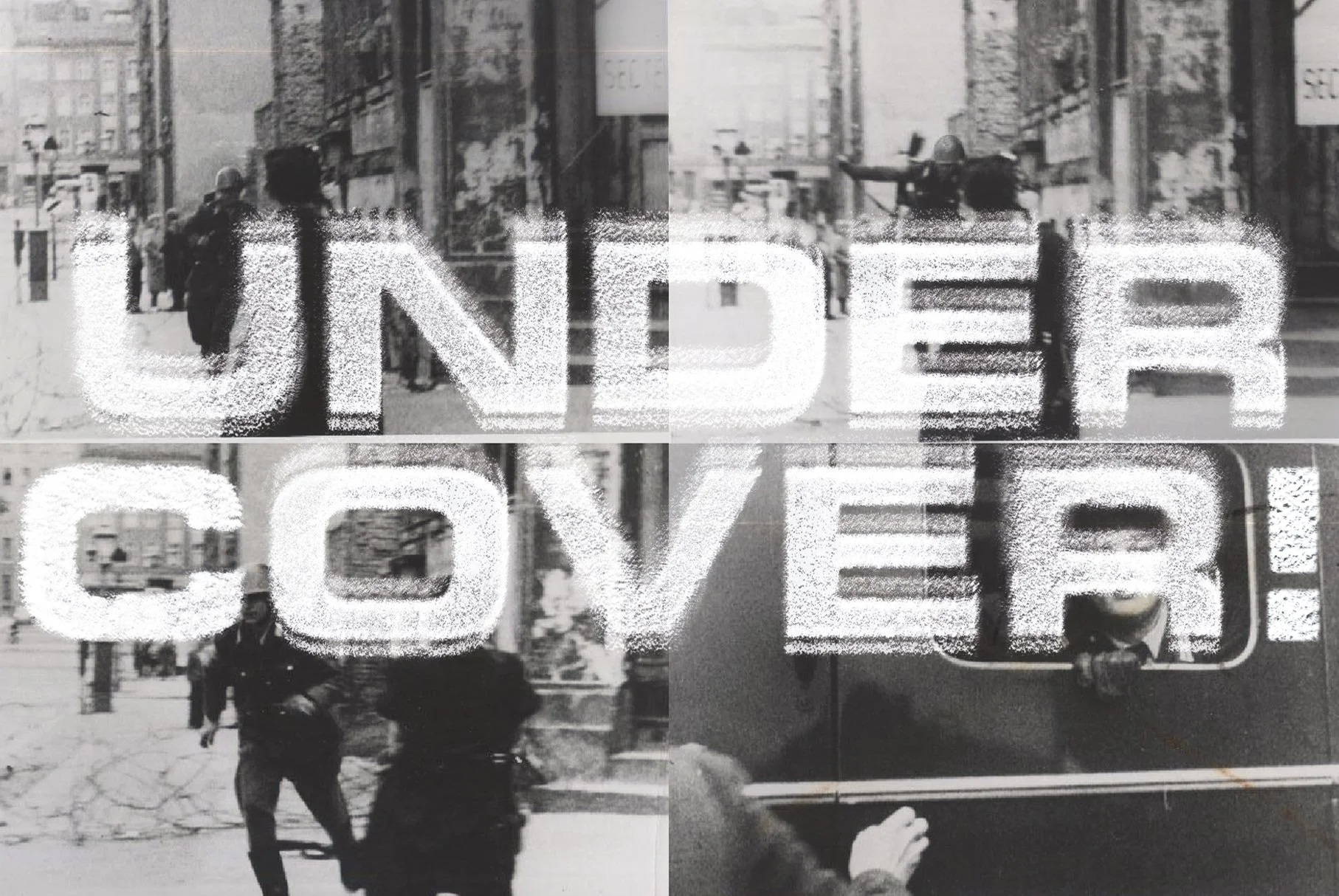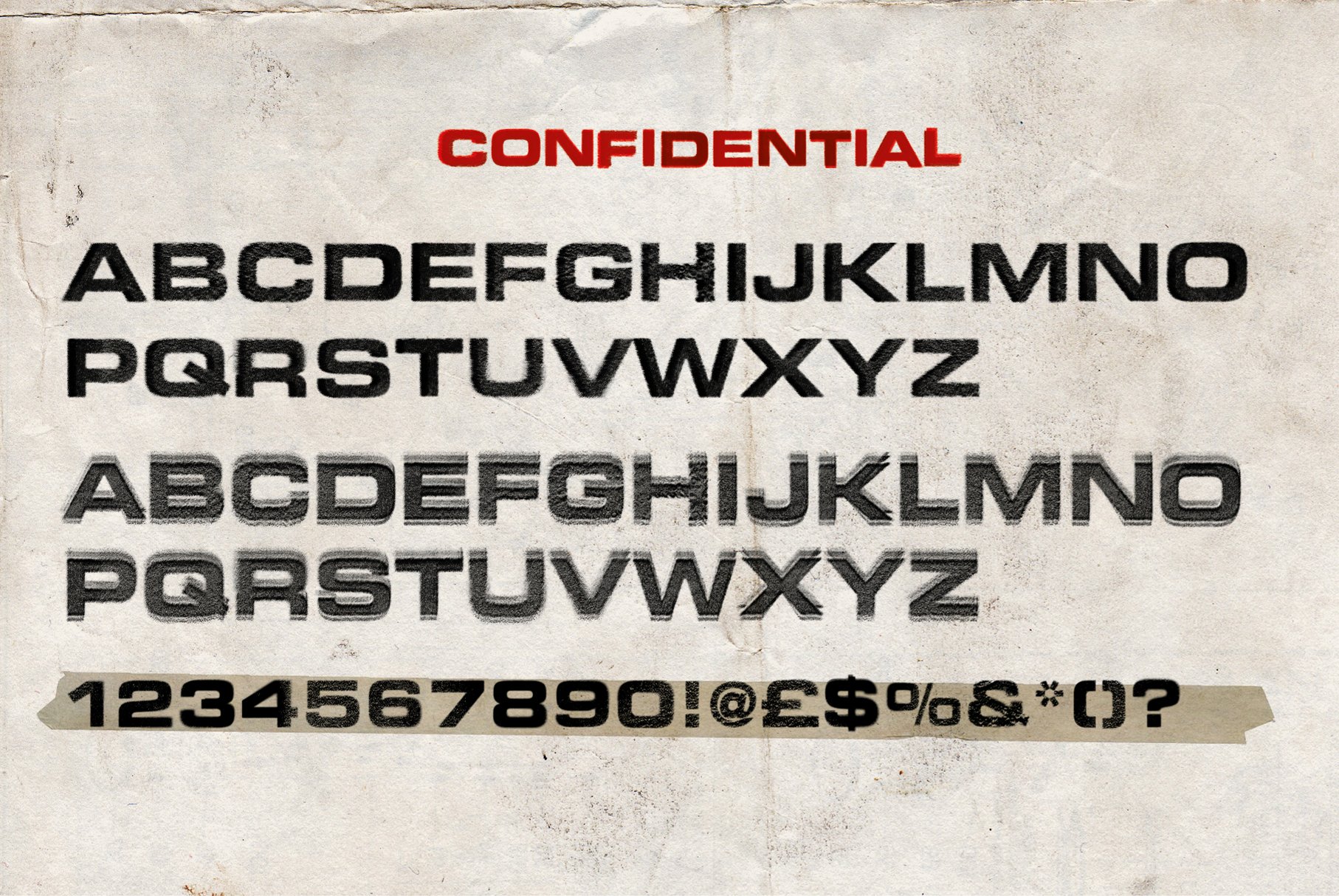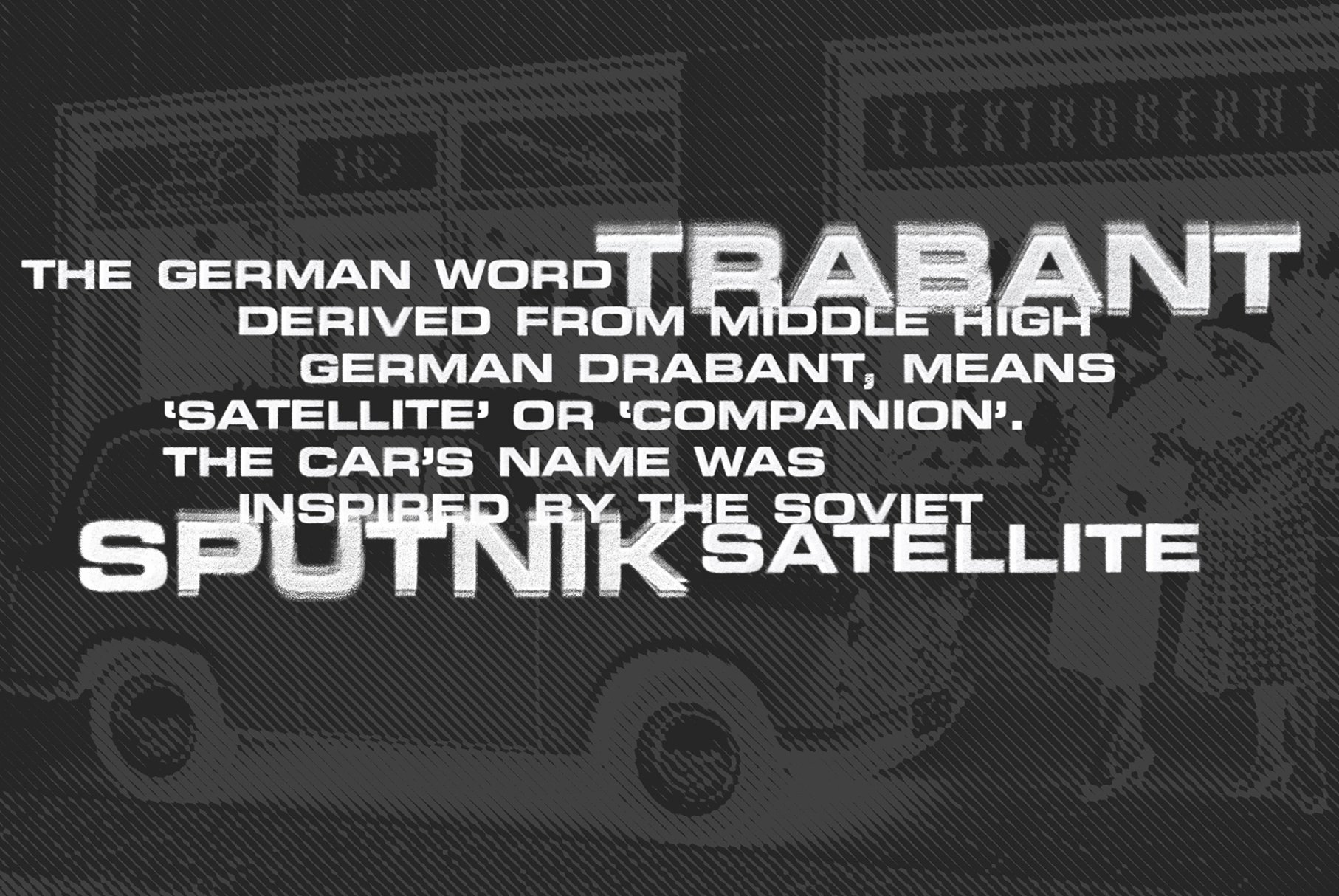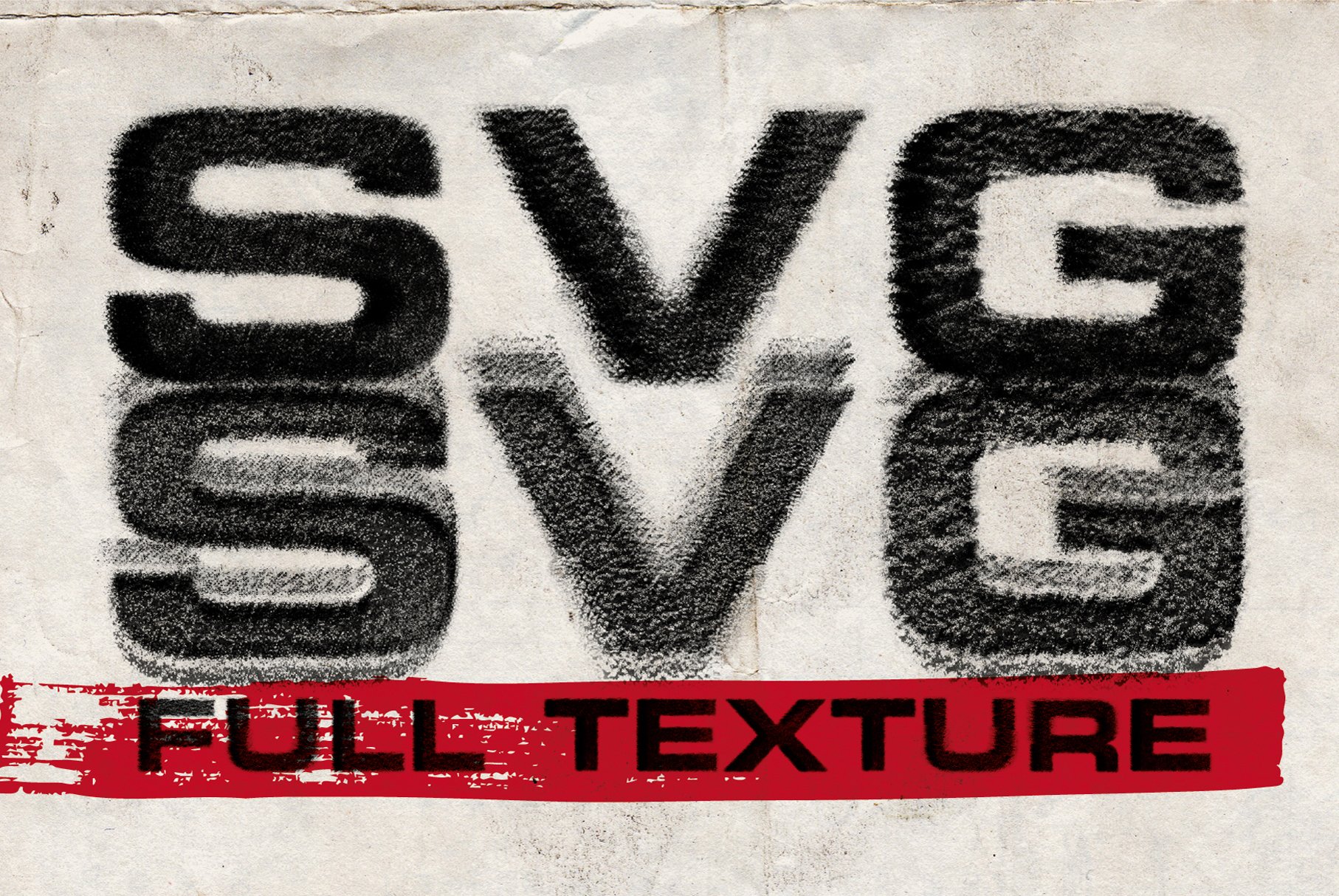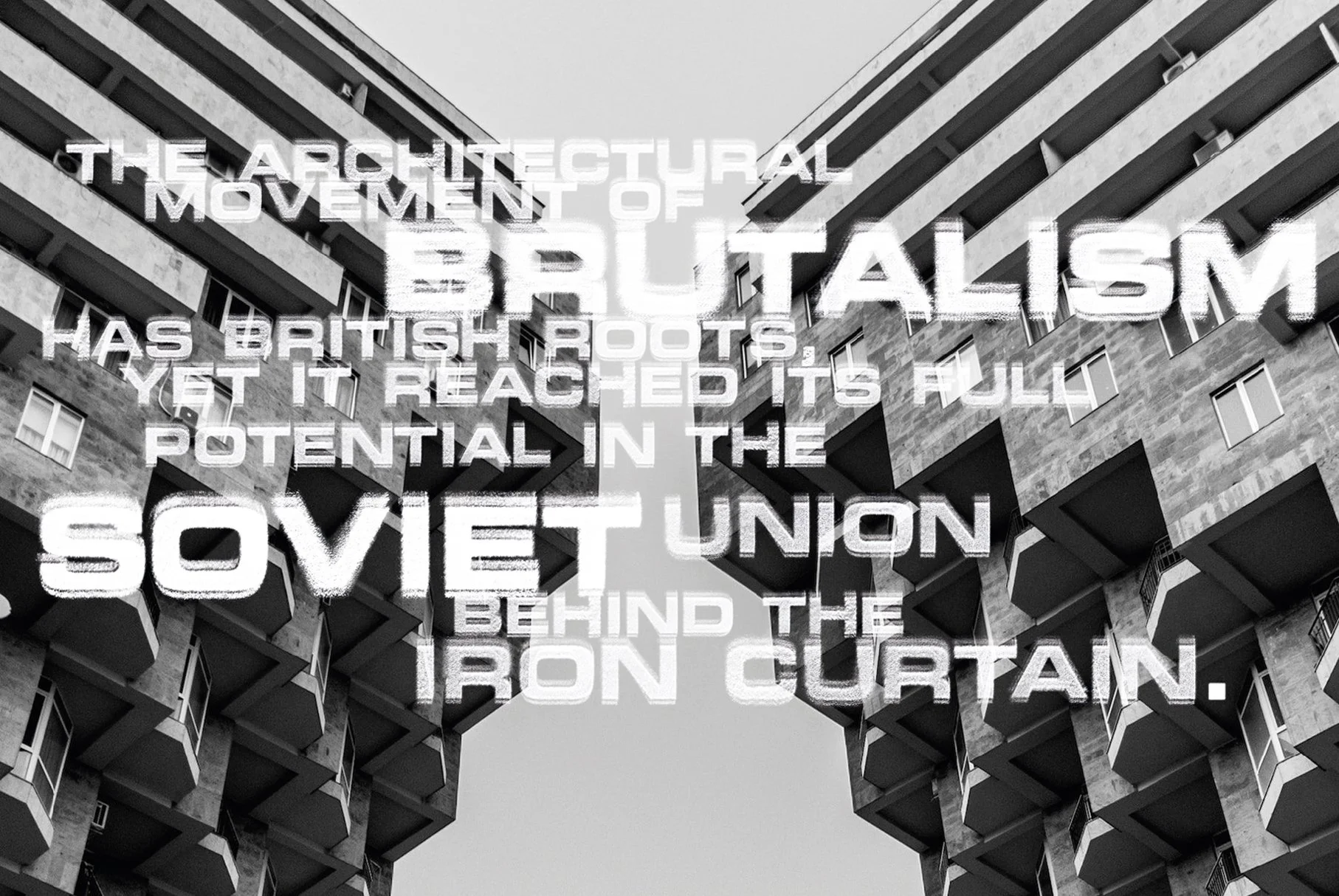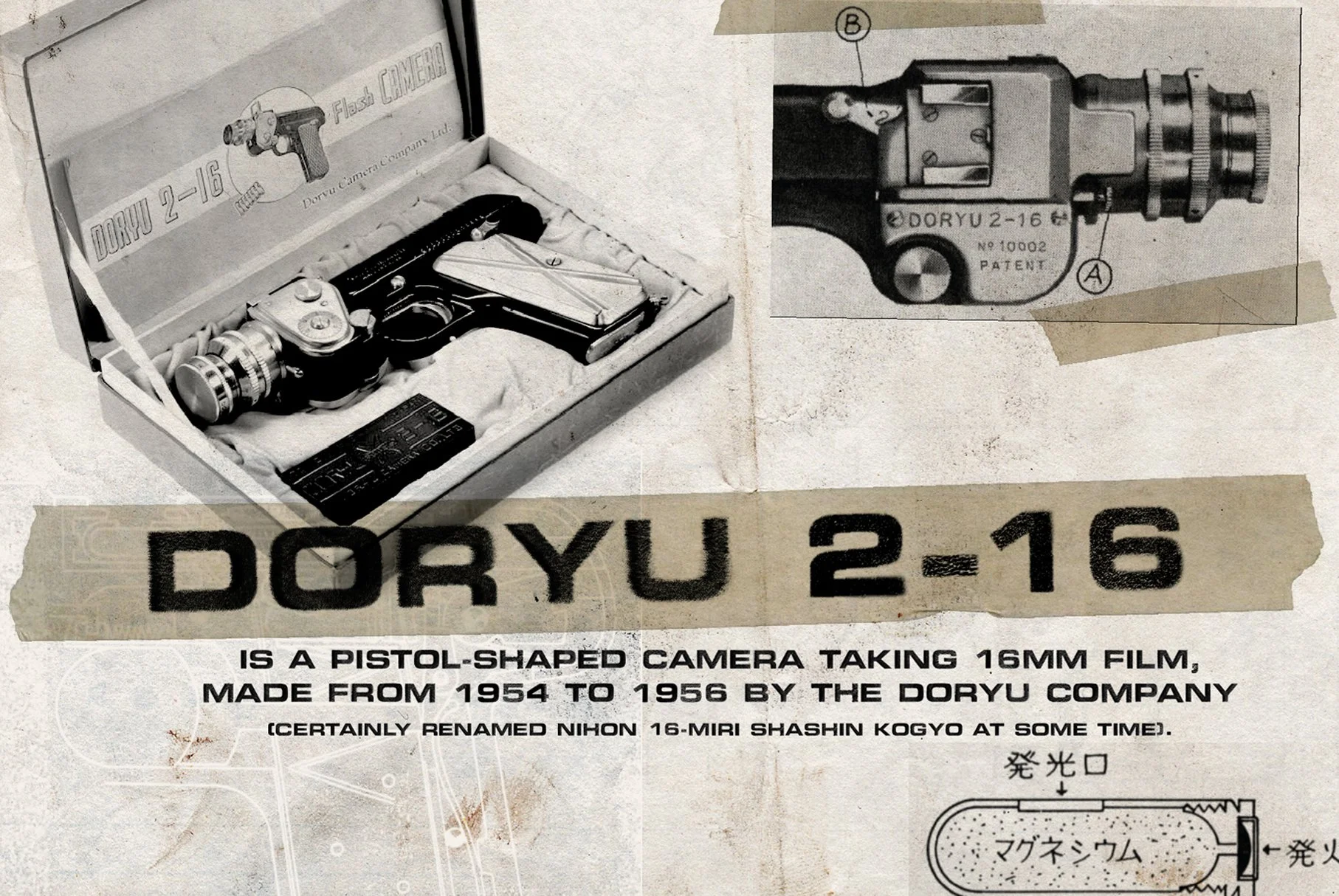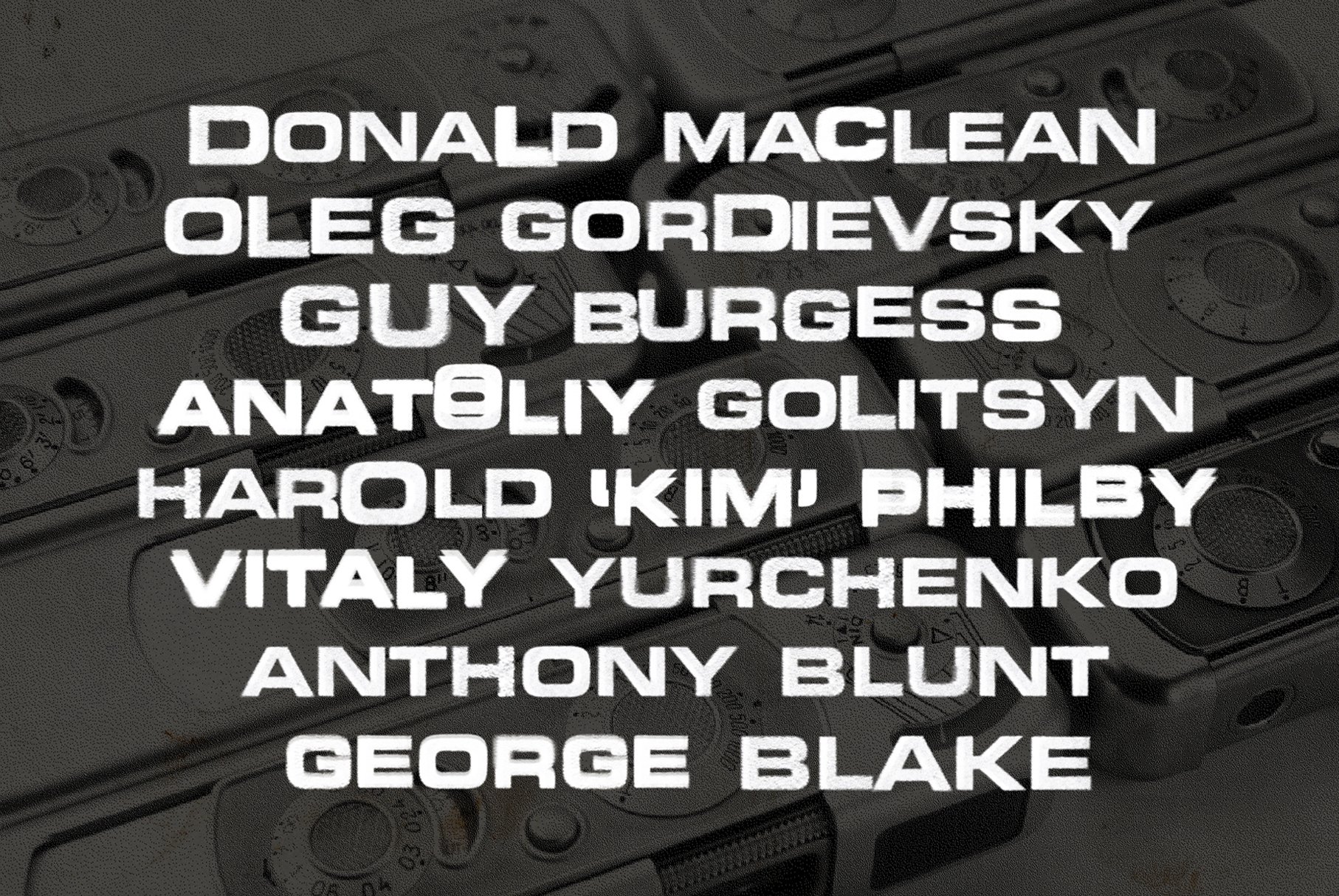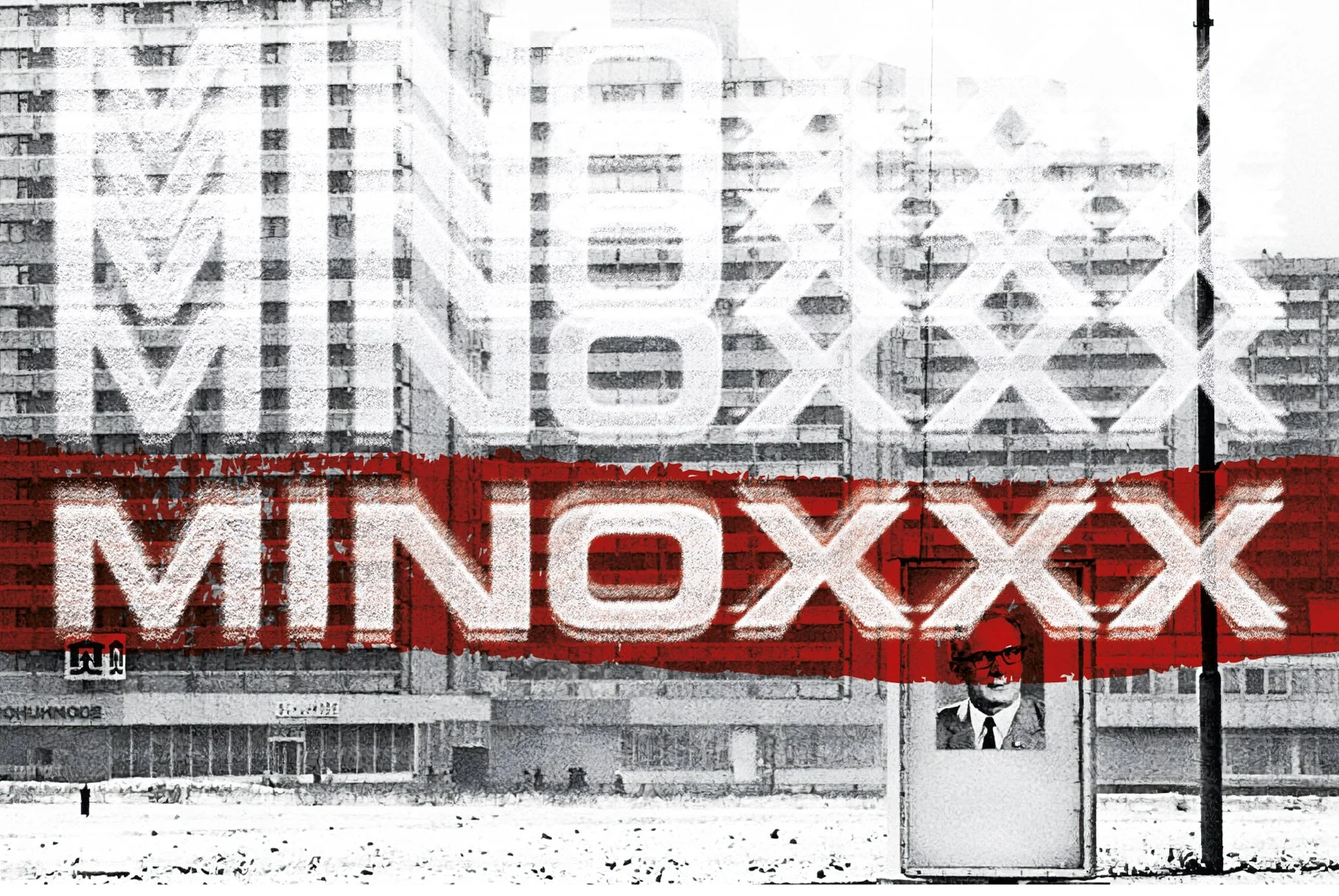
Minoxxx | Retro spy SVG font
Embark on a journey through the clandestine world of espionage with Minoxxx. Drawing inspiration from the iconic Minox spy camera, this font embodies the mystique and intrigue of 1960s spy culture. Ideal for projects steeped in allure and secrecy, Minoxxx adds a historic twist to contemporary design needs.